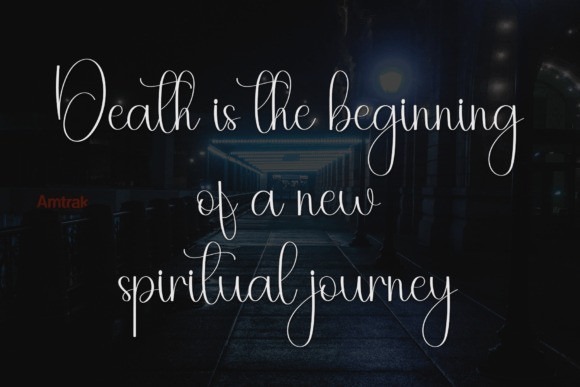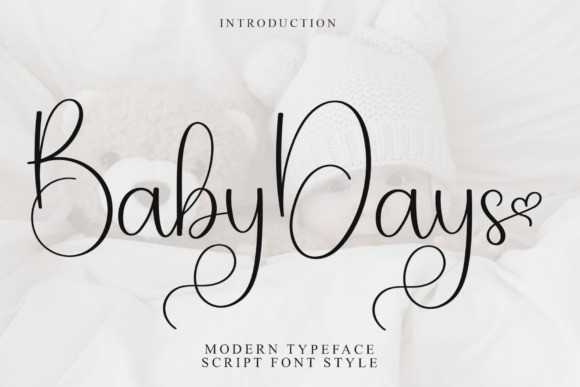
Baby Days Handwriting Font
Baby Days Handwriting Font is a cute, handwritten script font with soft, flowing letters. It has a playful and sweet feel, perfect for projects that need a lighthearted, warm touch.